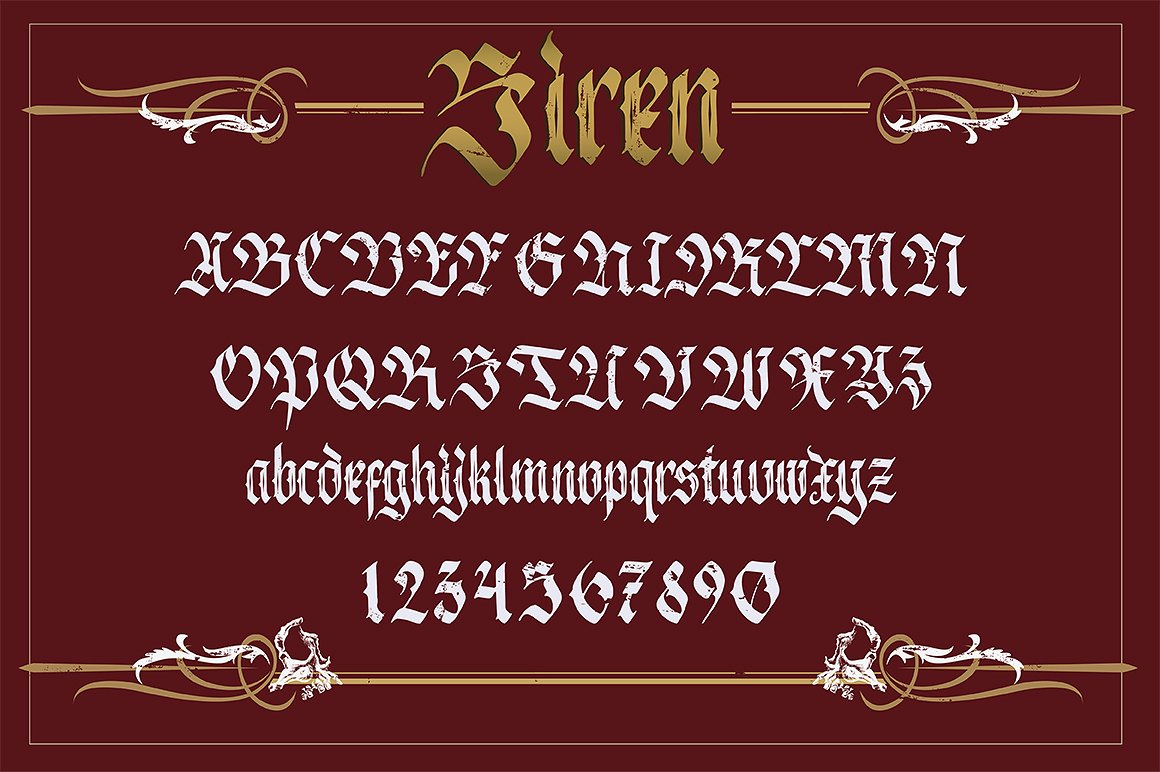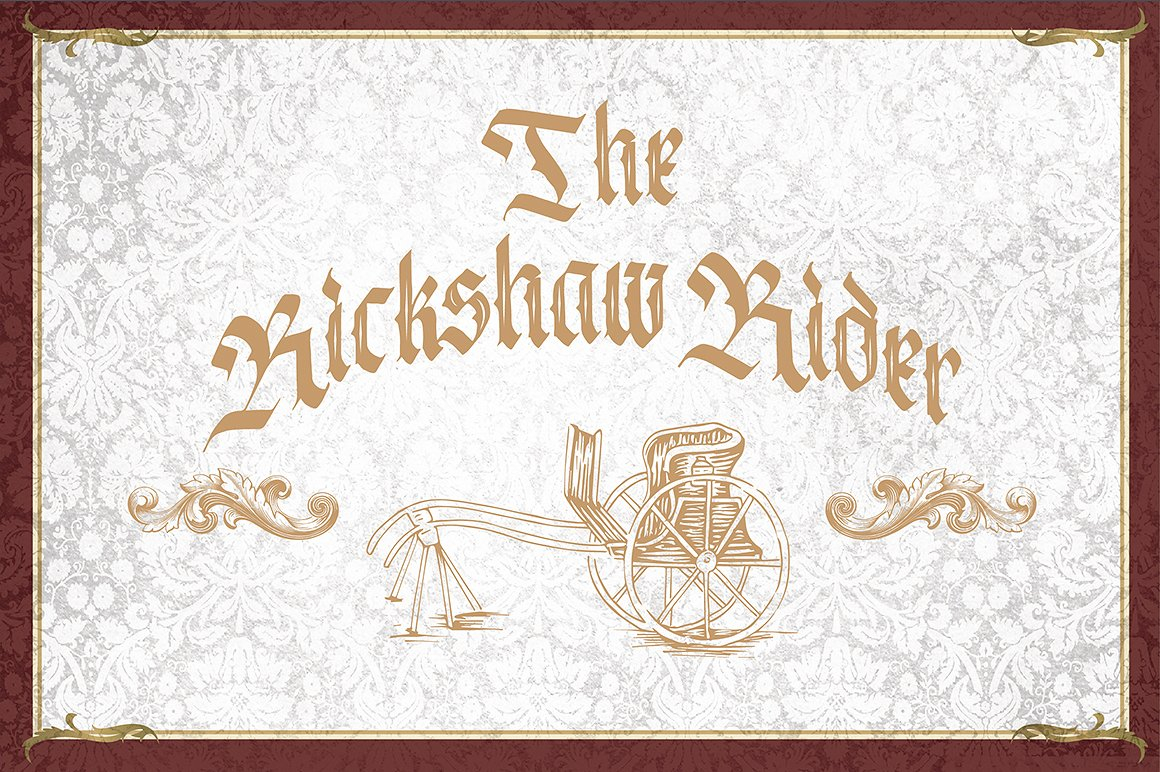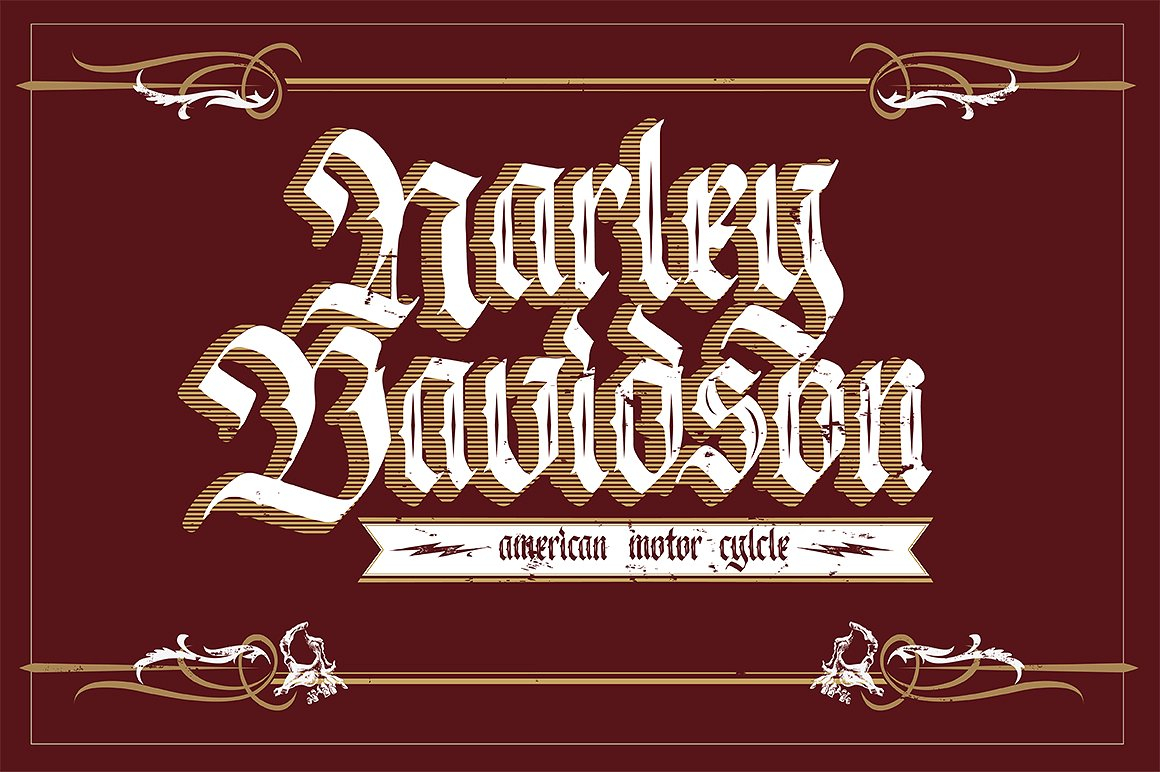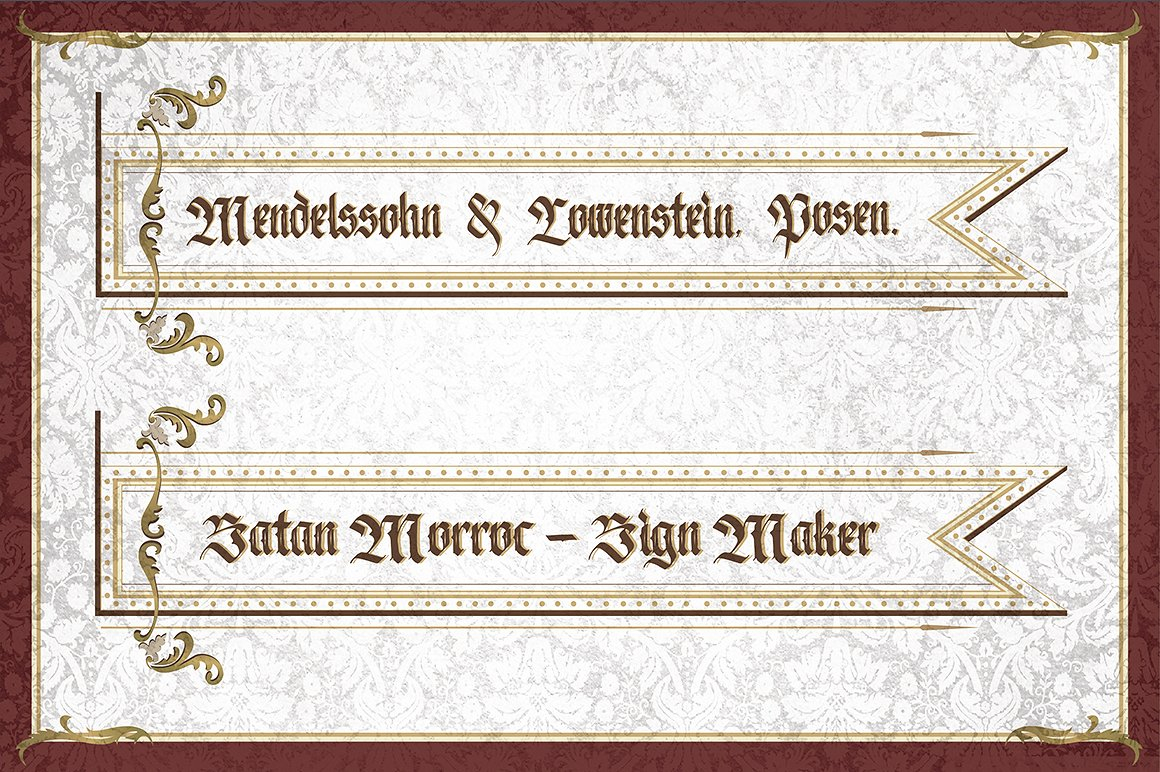
Siren Font
About Siren Font
The Siren was inspired by Greece mythology. It is powerful, enchanting, charming, and was made with a parallel pen which will shove your art creations to the apex easily and persistently.